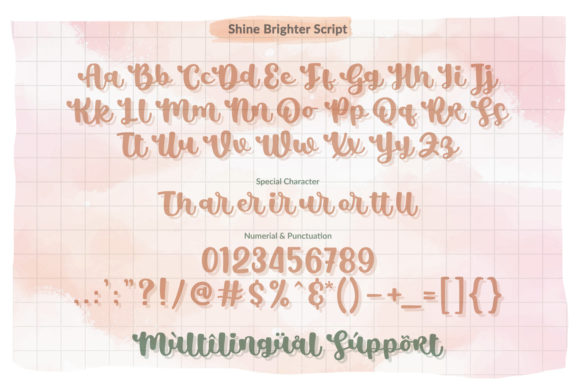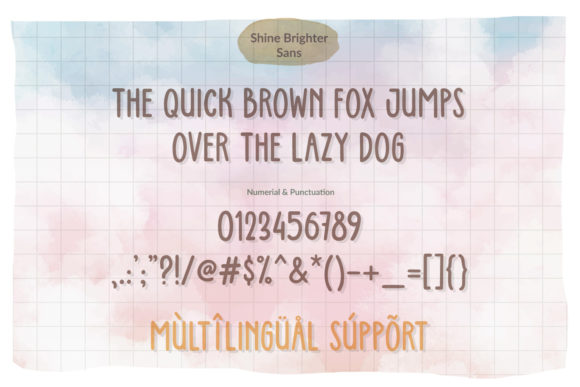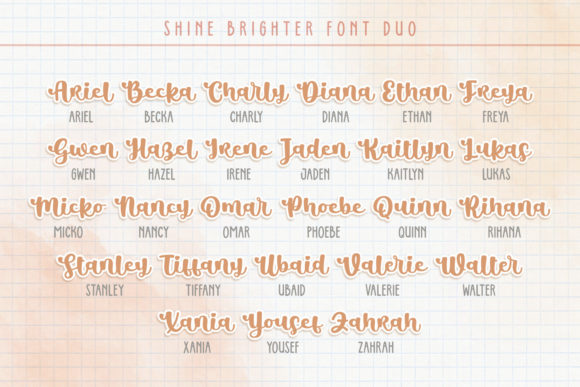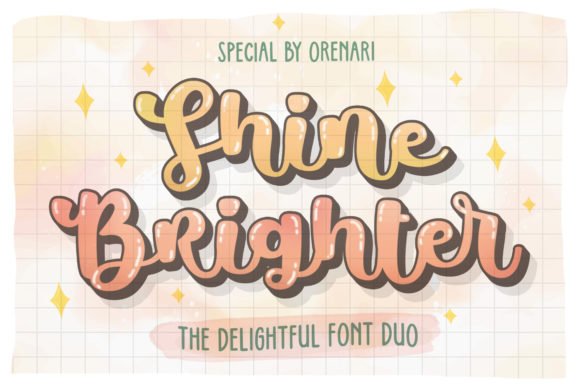
Introduction to Shine Brighter Font
Shine Brighter is a stunning and comprehensive duo font (script and sans serif), ideal for giving your projects a branded but friendly feel.
The two included styles can be combined together perfectly but are also beautiful on their own .